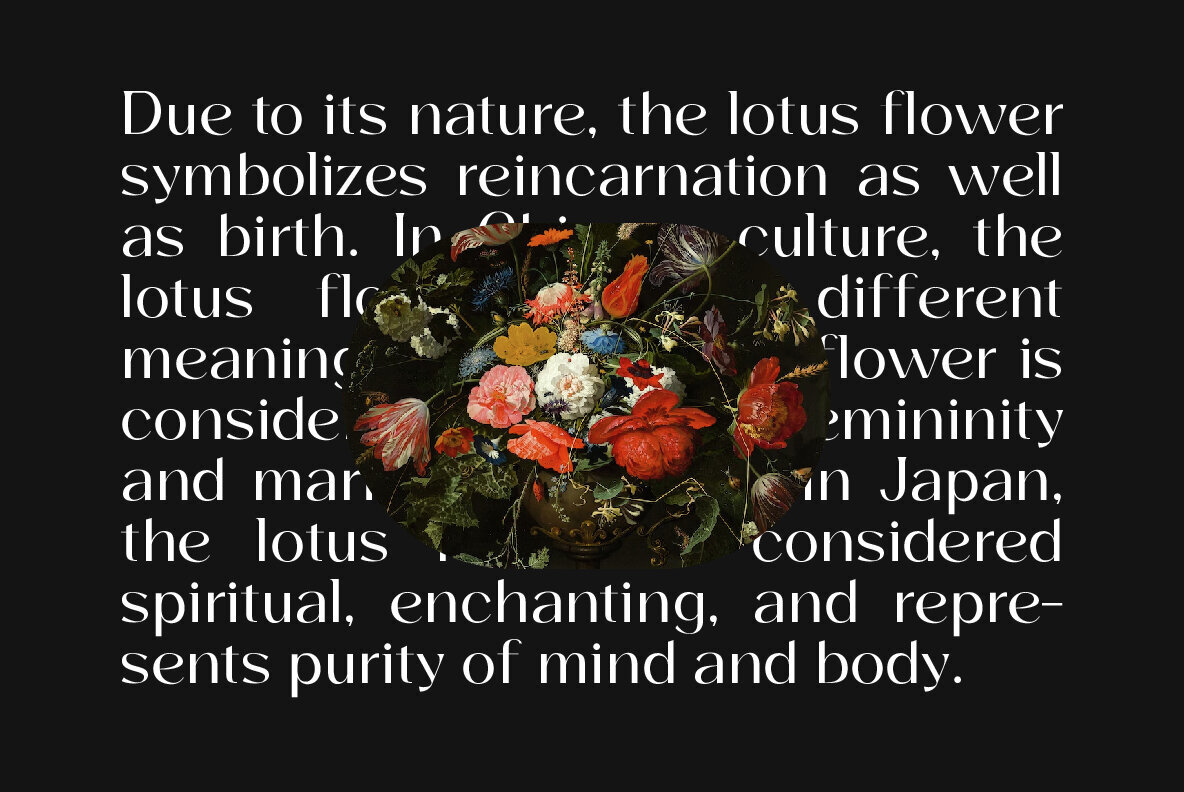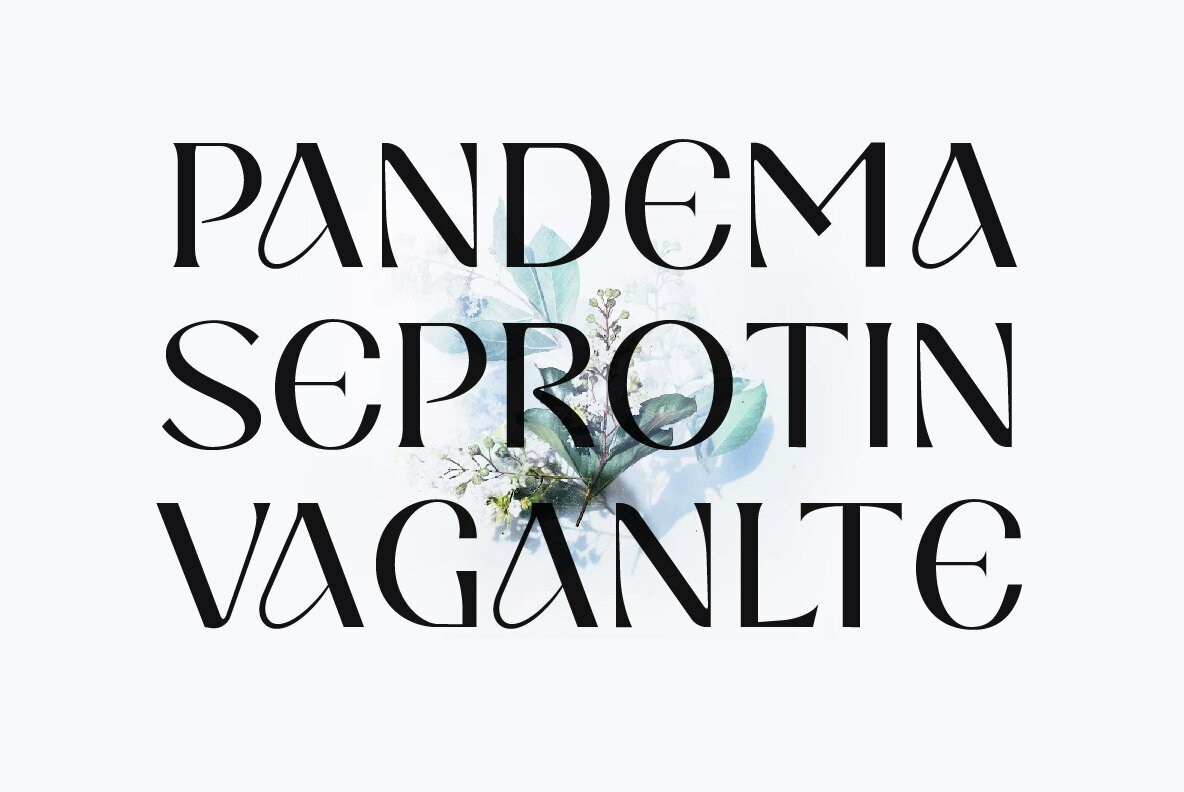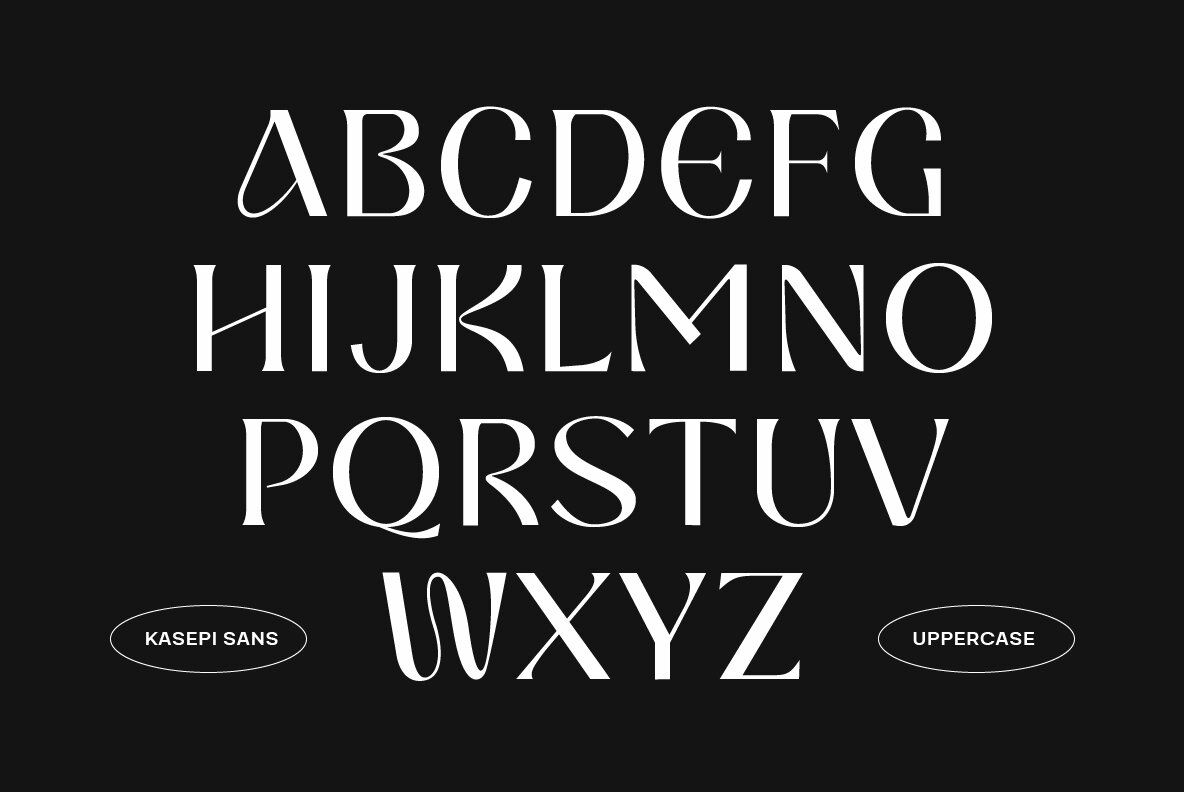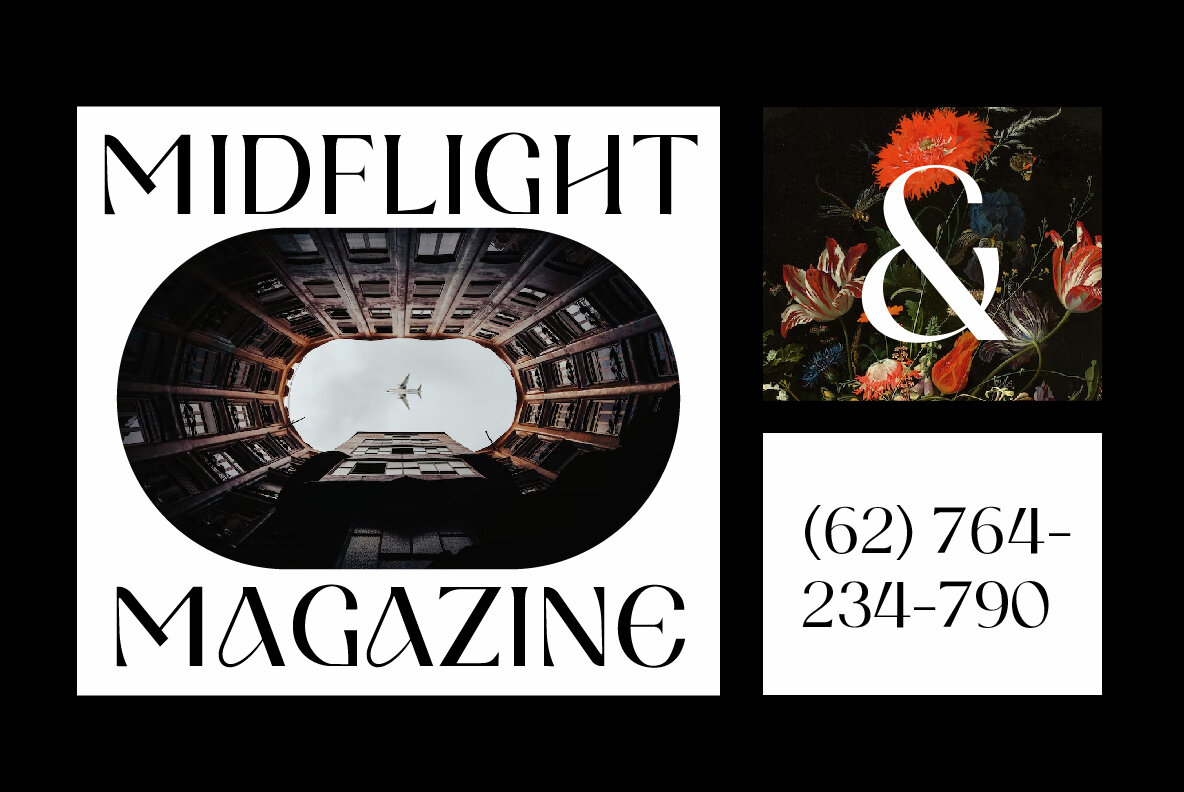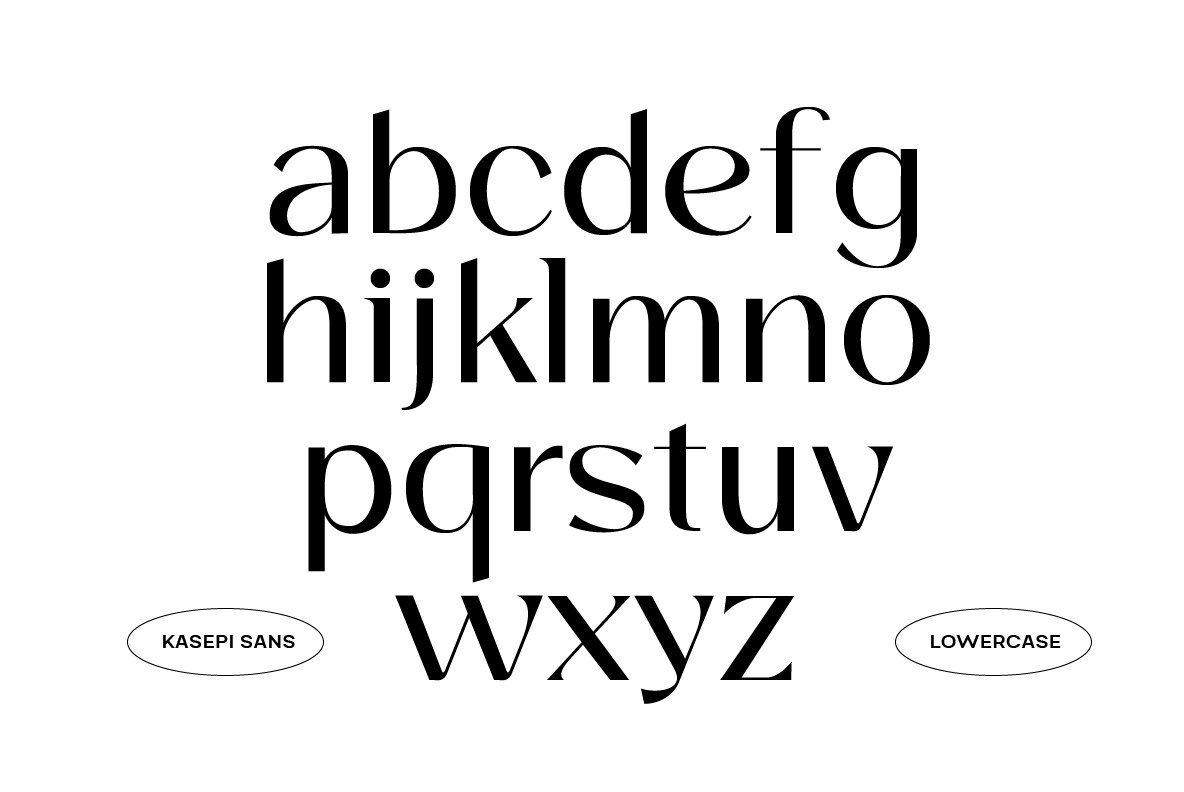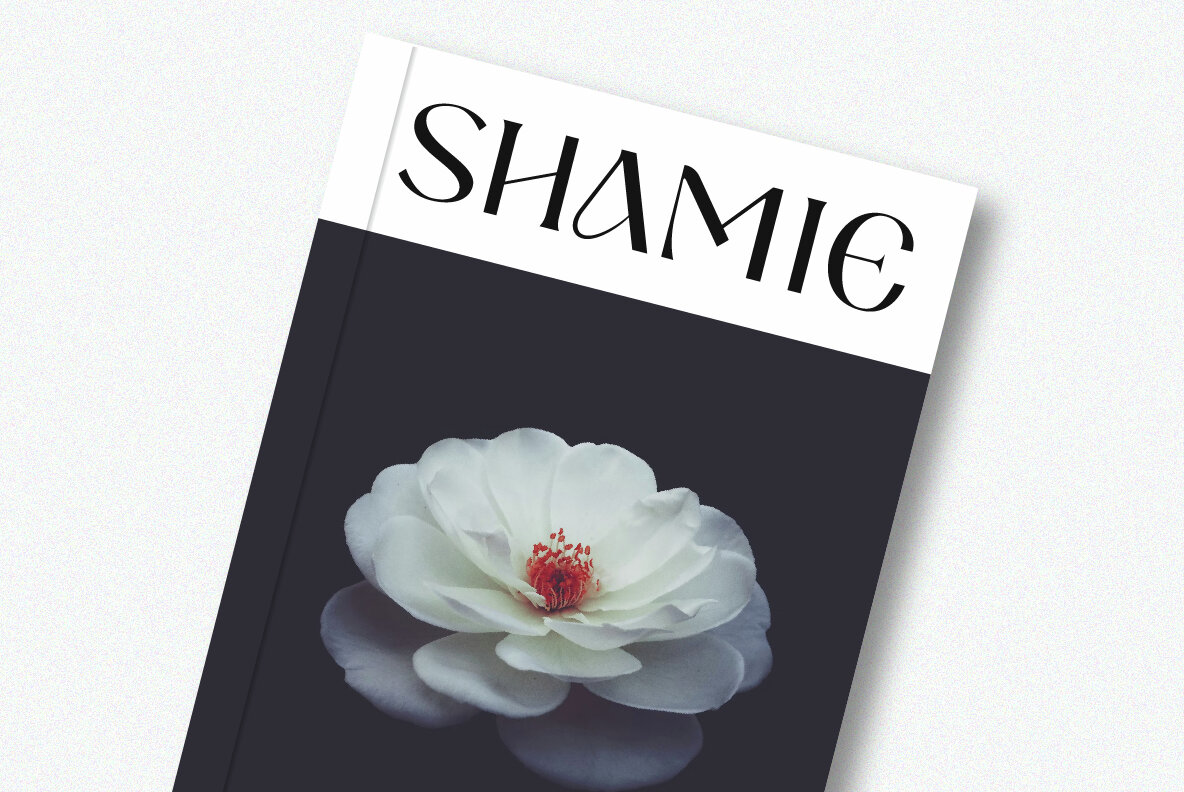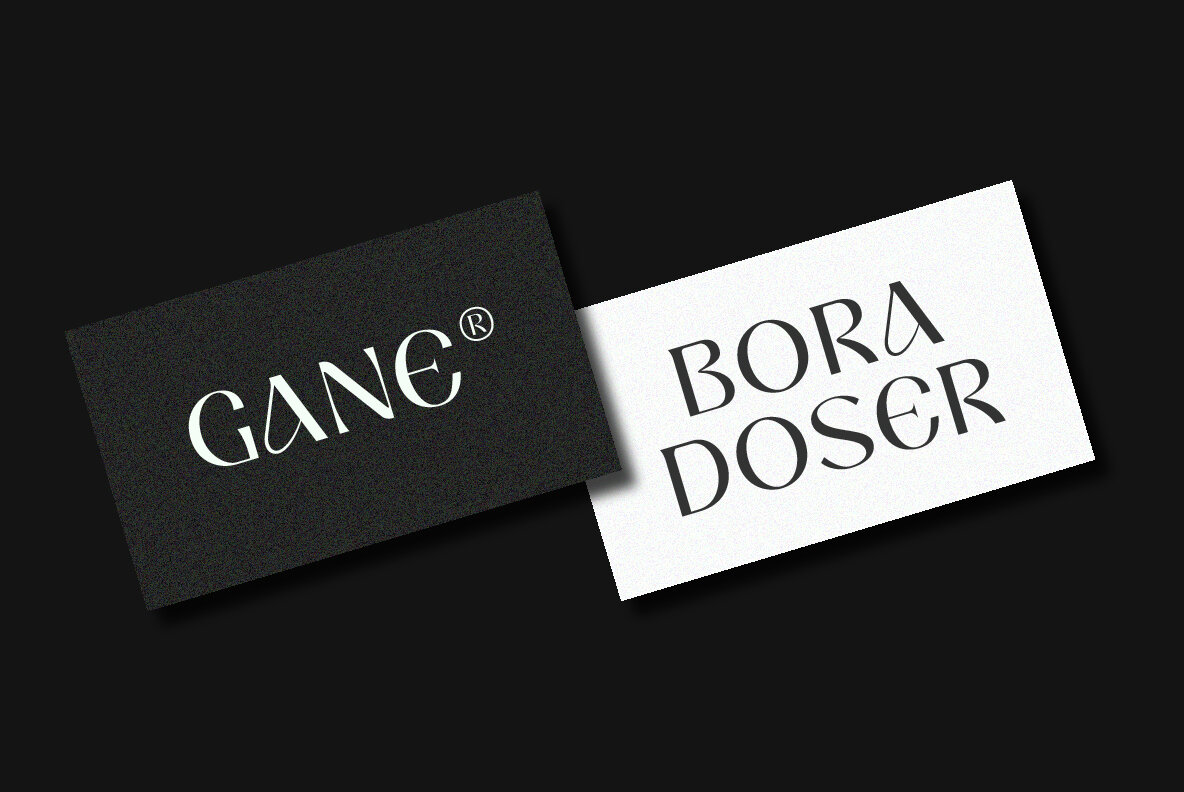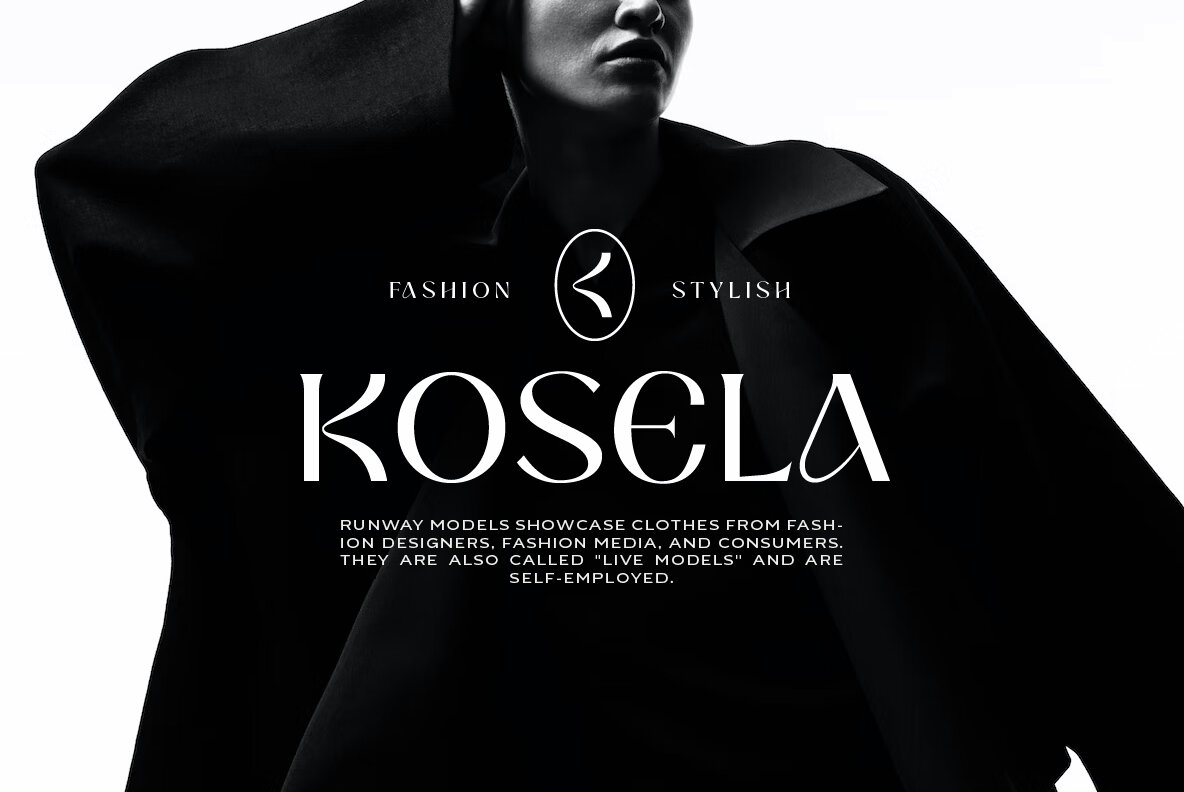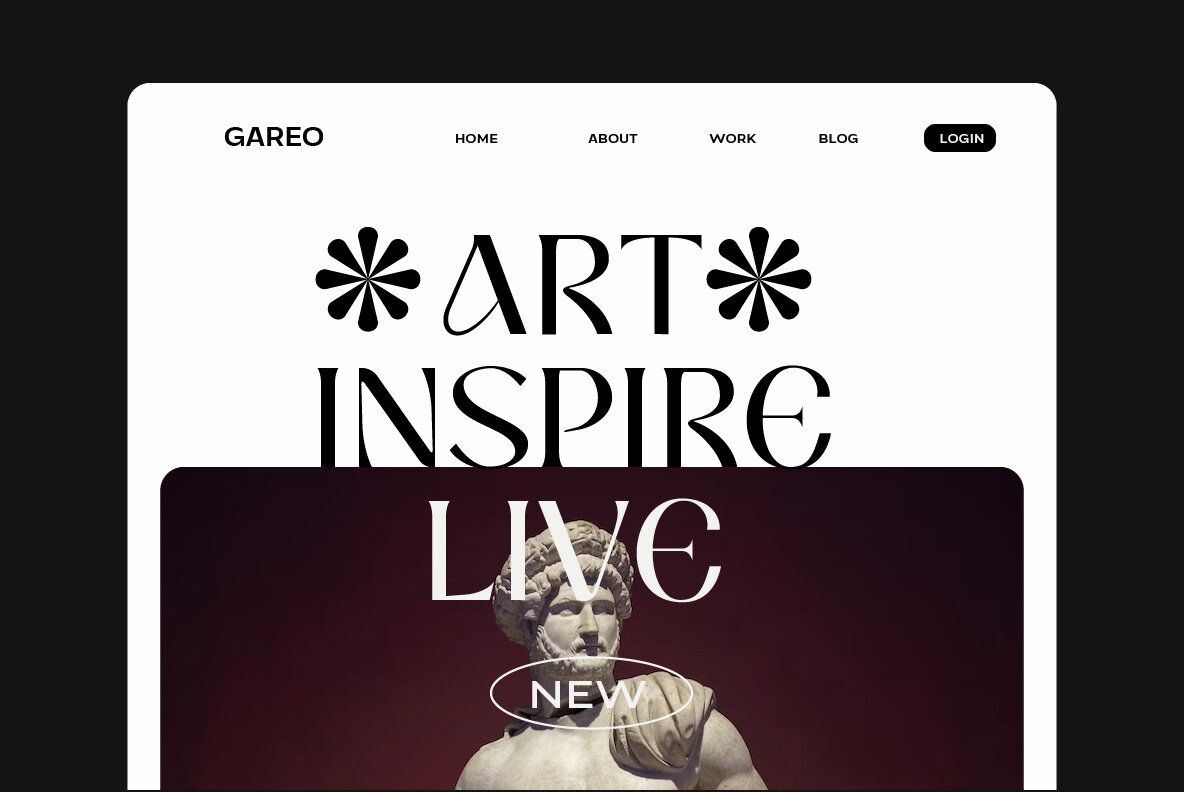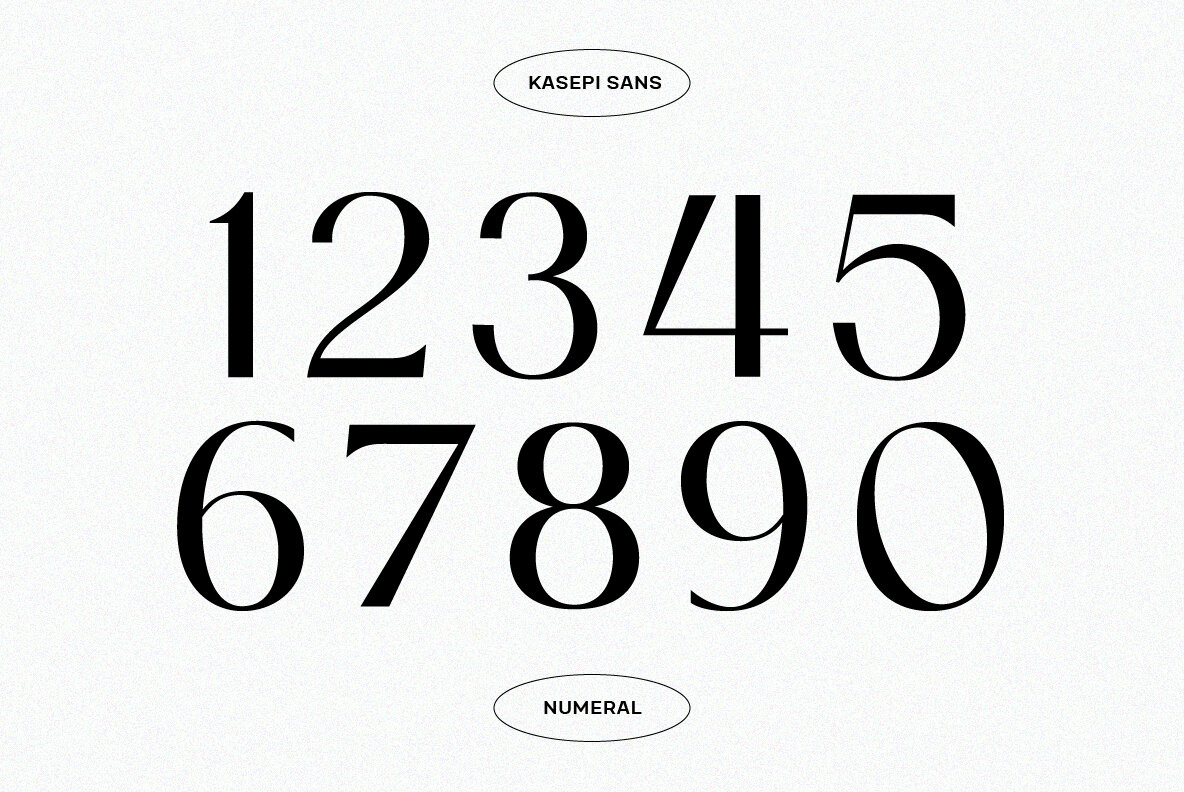
Kasepi Sans Font
Kasepi Sans
Kasepi Sans Display Typeface uniquely blends modern style with a classic touch, characterized by bold lines and balanced proportions. This typeface exudes an attractive and classy impression, making it ideal for titles, headers, and headline designs requiring a strong visual appeal.Kasepi Sans: Bold Display Typeface with Classic Elegance